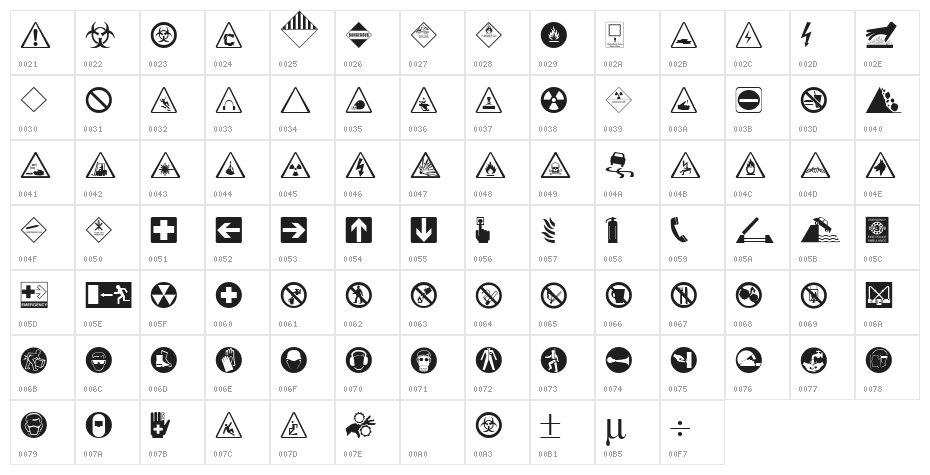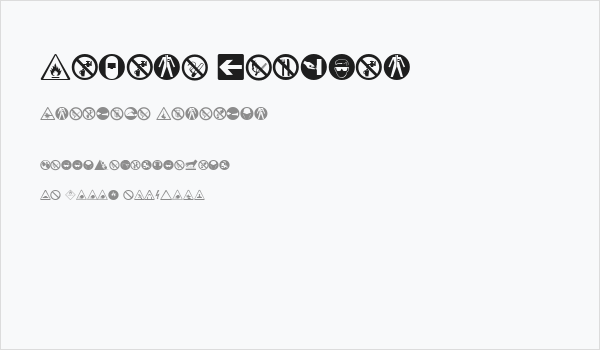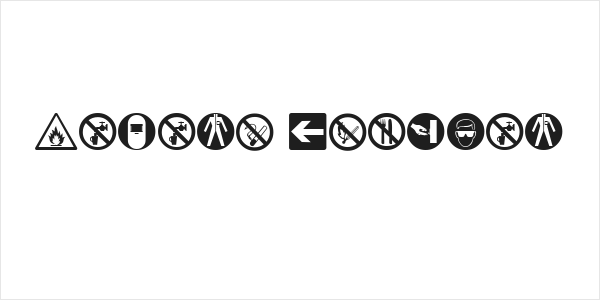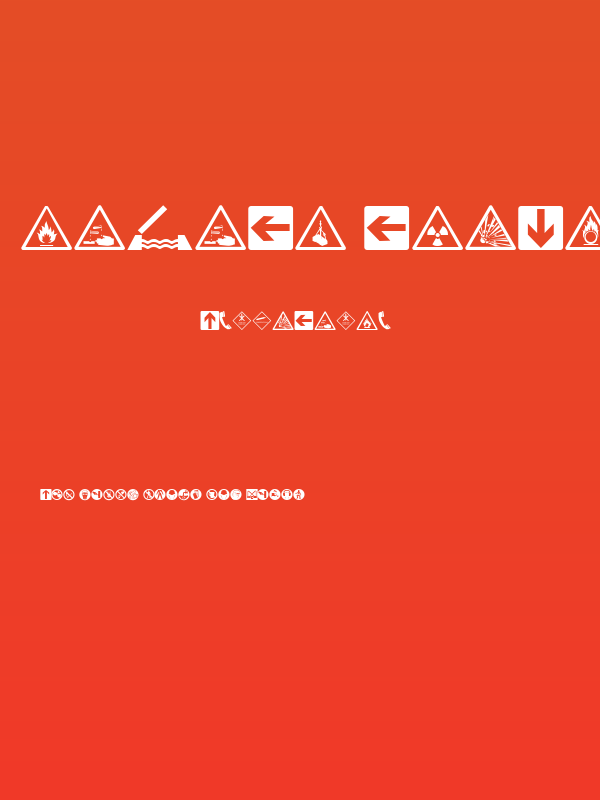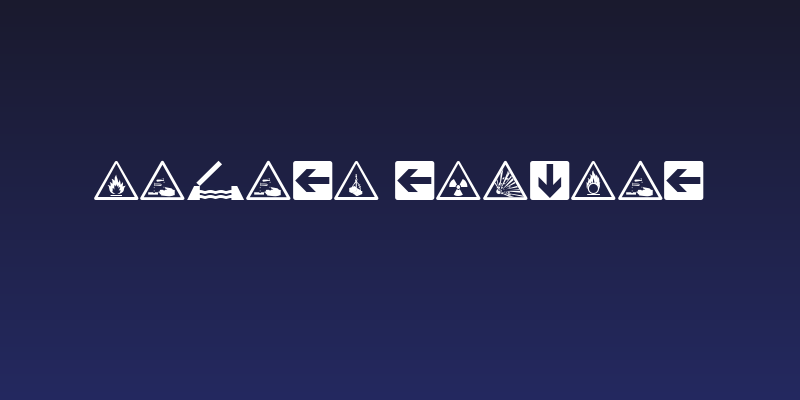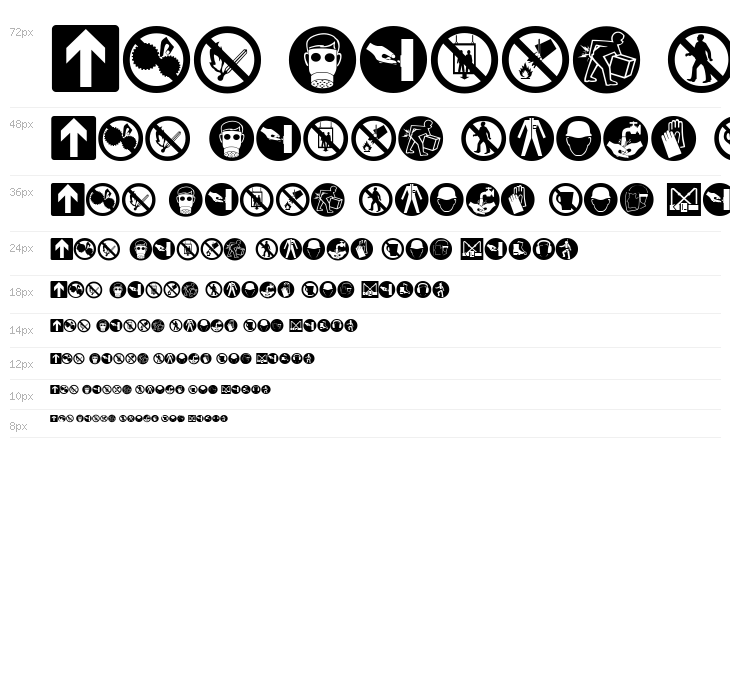
Hazard Regular Font
Hazard Regular Description
A collection of bold, high-contrast hazard and safety pictograms rendered in a consistent, geometric style. The icons are enclosed in circles, triangles, and squares, featuring clear, easily recognizable symbols for warnings, prohibitions, and mandatory actions.
| Overall Style | Modern, Functional, Industrial |
| Use Case | Signage, Labels, Manuals, Posters |
| Proposed Projects | Safety signage, industrial labels, instructional manuals, workplace posters, emergency guides. |